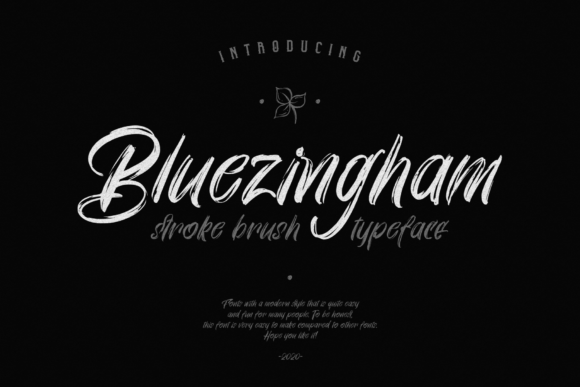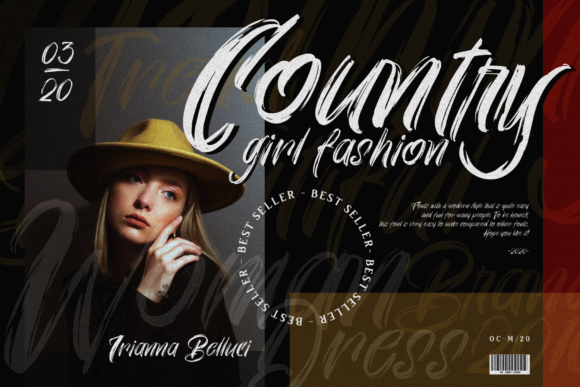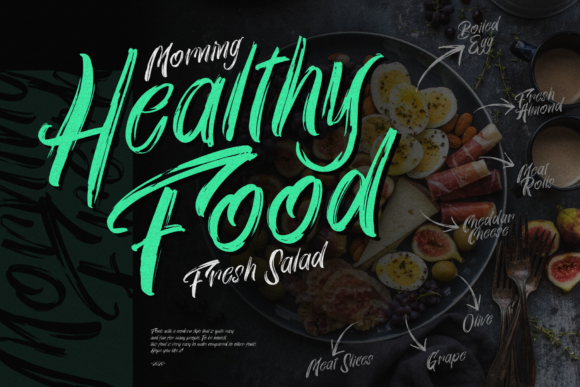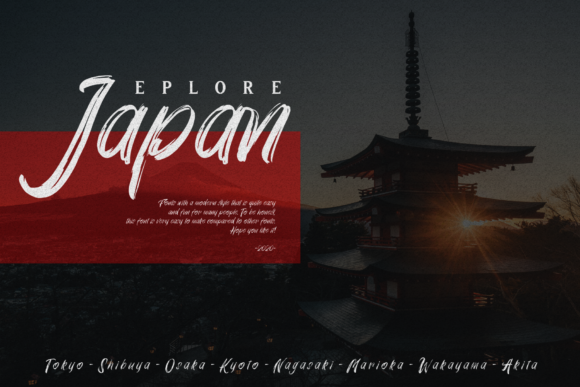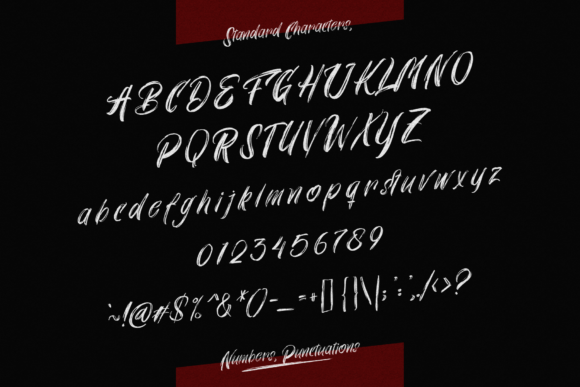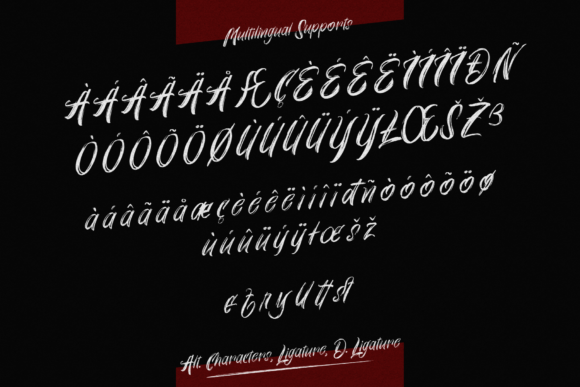
Bluezingham Font
About Bluezingham Font
Bluezingham is a casual, fun script font, created by using a brush pen. Clean and a little bit quirky, this font is the perfect fit for all of your logos, branding, social media, and crafty DIY projects.